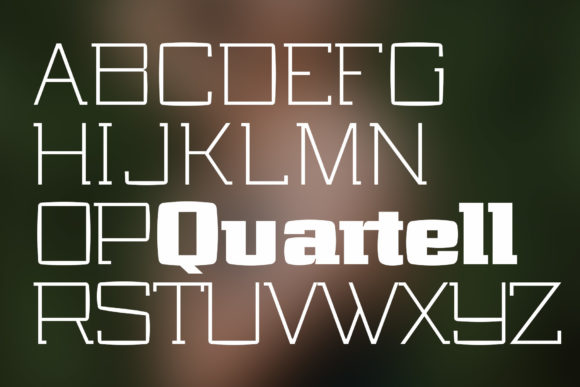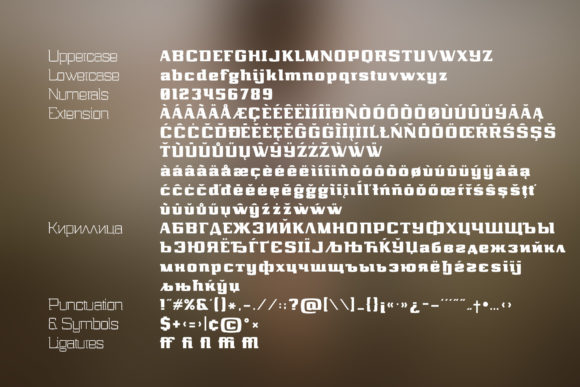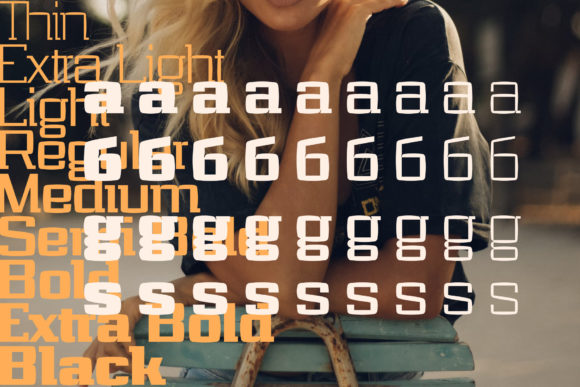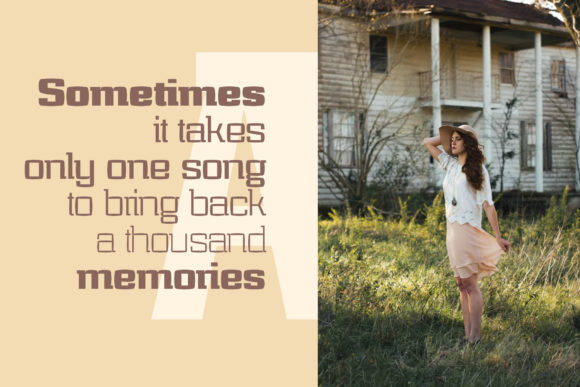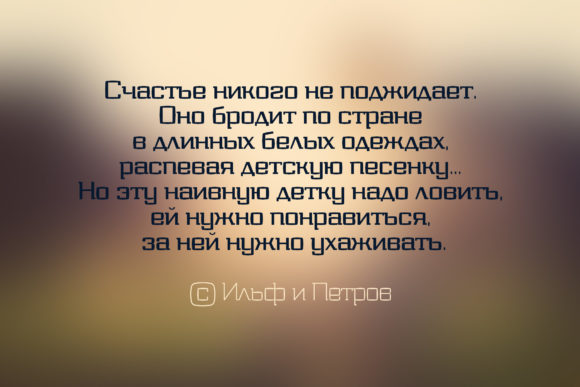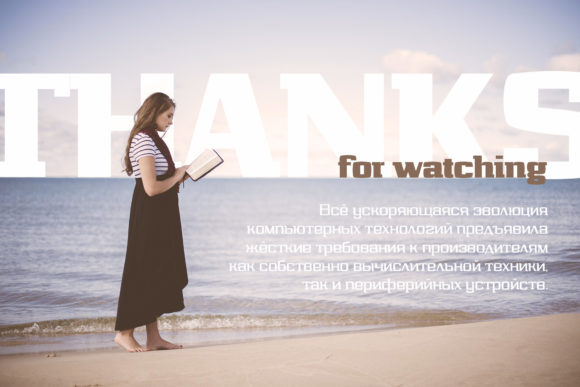
Quartell Round
Quartell Round: A Bold and Cool Western-Inspired Slab Serif Font
Quartell Round is a distinctive slab serif font that combines boldness with a cool western vibe. This eye-catching typeface is designed to enhance a wide range of design projects with its unique style.
Key Features of Quartell Round
• Bold Design: Features strong, impactful letterforms that command attention.
• Western Aesthetic: Evokes a cool, western-inspired style perfect for rustic or vintage designs.
• Slab Serif Structure: Incorporates the characteristic thick, rectangular serifs typical of slab serif fonts.
• Rounded Elements: Includes rounded corners for a softer, more approachable look.
• Versatile Application: Suitable for enhancing various design ideas across different projects.
Ideal Uses for Quartell Round
Quartell Round’s unique characteristics make it particularly well-suited for:
• Western-themed branding and logo design
• Rustic or vintage-inspired packaging
• Poster designs for country music events or rodeos
• Book covers for western or frontier stories
• Signage for country-western establishments
• Website headers and digital content with a western flair
When incorporating Quartell Round into your designs, consider these tips:
• Use for headlines or short blocks of text to maximize its bold and western impact
• Experiment with different sizes to highlight the font’s unique rounded details
• Take advantage of its cool vibe to add a western touch to various design projects
Quartell Round is an excellent choice for designers looking to add a bold and cool western-inspired slab serif font to their typographic toolkit. Its ability to enhance any design idea makes it stand out in the world of typography. Whether you’re working on logo designs for western-themed brands, creating layouts for country music events, or developing content that requires a touch of rustic charm, Quartell Round offers the perfect blend of boldness and western cool.
Furthermore, Quartell Round’s unique aesthetic allows it to shine in various contexts. From vintage-inspired designs to more contemporary layouts that need a touch of western flair, this font can elevate your projects. Its bold yet cool style works particularly well in designs that require a strong and impactful mood with a western twist.
In conclusion, Quartell Round is a font that truly captures the spirit of the West with a modern, cool edge. Its ability to work well in both rustic, vintage-style projects and contemporary designs that require a western touch showcases its flexibility. For those looking to add a dash of bold, western coolness to their work, Quartell Round can even enhance themed creations with its unique, rounded style. It will most certainly enhance any design idea you wish to develop, bringing a cool western vibe to your projects.